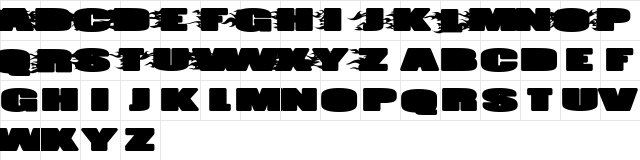
JUMBO BURN Regular
| Foundry | M.K.V |
| Designer | M.K.V |
Design Context for JUMBO BURN Typeface
JUMBO BURN is a composed and adaptable typeface that performs quietly and consistently across a wide range of design contexts.